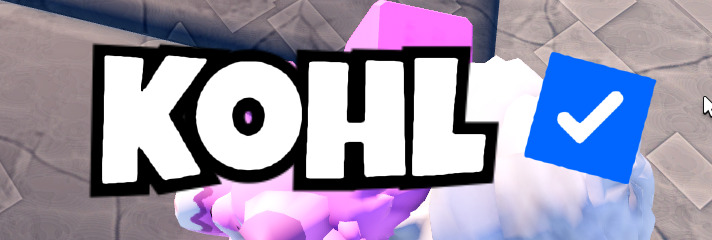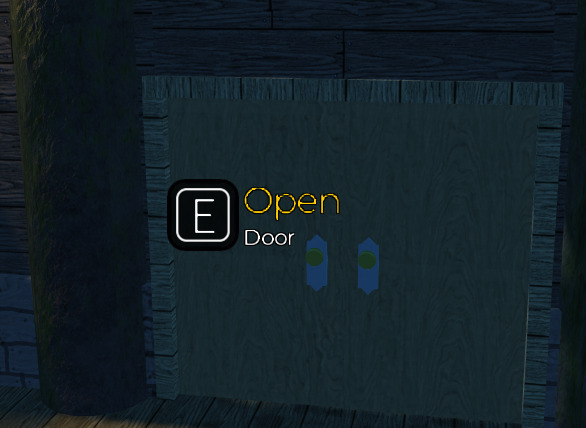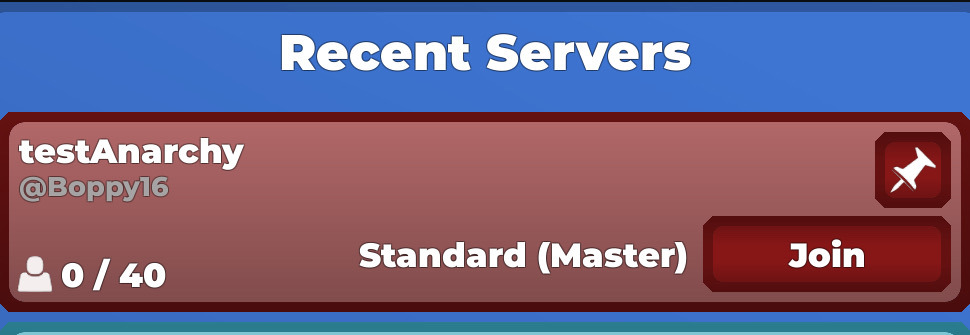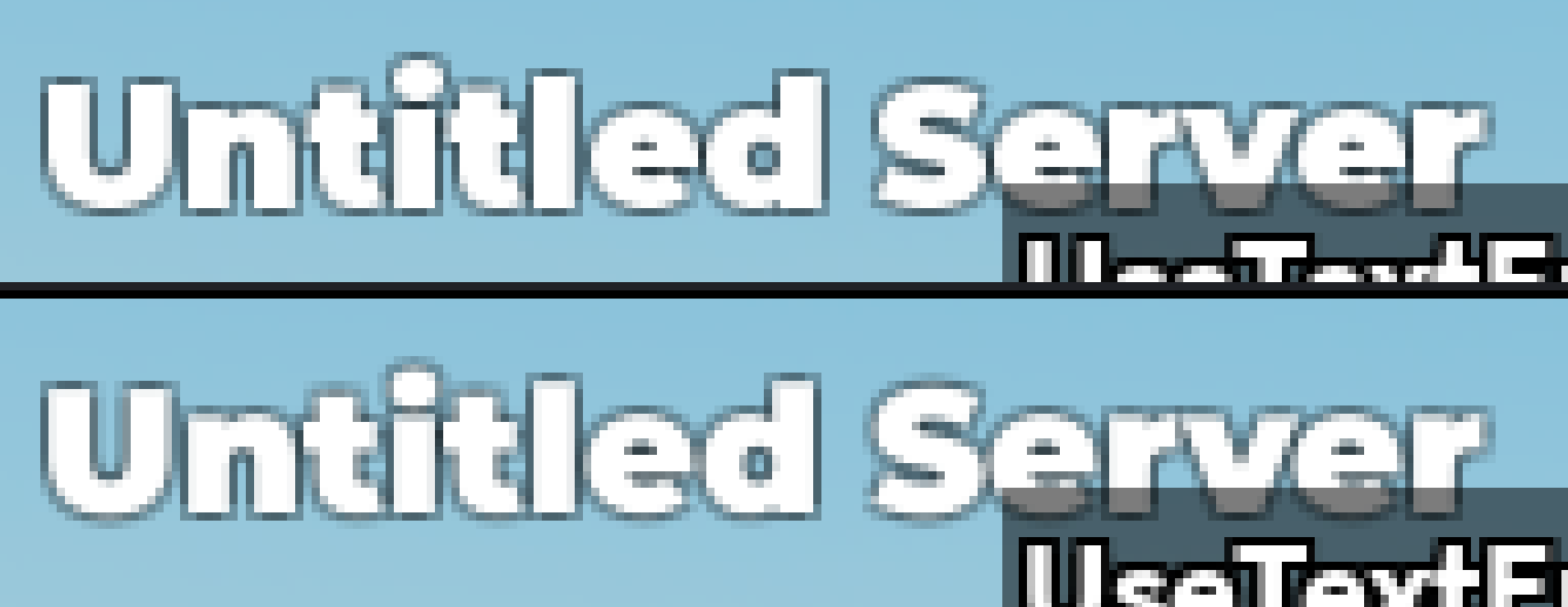
As of a few days ago, there has been some change to the font Montserrat, resulting in the glyphs being closer together. The UI using this font hasn’t been touched in several months.
This issue affects every UI using this font.
The 731 release last week included an update to FreeType, a text rendering library we use. Unfortunately, there are some subtle pixel differences between how the old and new versions render text.
The changes are mixed. The text is slightly less blurry, but the kerning is slightly worse.
This update is needed for other reasons, so likely won’t be rolled back. In the future, we’re hoping to ship a feature that will improve kerning, but I can’t give a timeline on when this will happen. For now, I’ll close this as won’t fix.